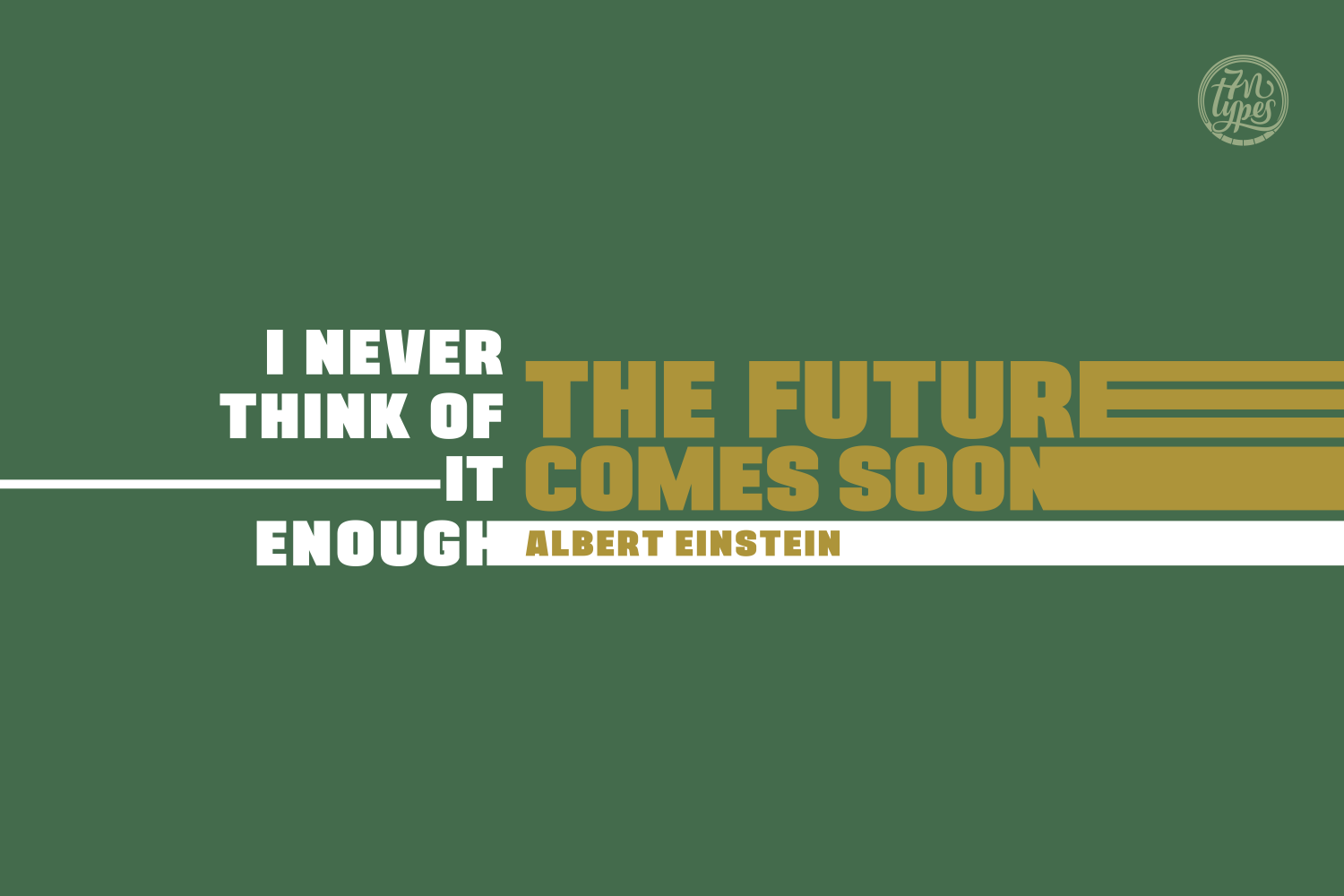
Unleash Your Creativity with Blackplotan Font: A Strong, Bold, and Expressive Sans Font
Are you a designer or crafter looking for a font that makes a statement? Look no further than Blackplotan Font. This strong, bold, and expressive sans font is perfect for adding a touch of personality to your projects. In this article, we’ll dive into the features and benefits of Blackplotan Font, and explore how it can elevate your designs.
The Power of Blackplotan Font
Blackplotan Font is a sans serif font that exudes confidence and creativity. Its bold and expressive letters are designed to make a lasting impression, making it perfect for headlines, titles, and other display text. The font’s strong lines and geometric shapes give it a modern and edgy feel, while its clean and simple design ensures that it remains highly legible.
Key Features of Blackplotan Font
- Strong and Bold: Blackplotan Font is a heavy-hitting font that demands attention. Its bold lines and geometric shapes make it perfect for creating eye-catching headlines and titles.
- Expressive: Despite its boldness, Blackplotan Font has a expressive and dynamic feel. Its letters have a sense of movement and energy, making it perfect for conveying emotion and personality.
- Clean and Simple: While Blackplotan Font is bold and expressive, it remains clean and simple at its core. This makes it highly legible, even at large sizes.
- Versatile: Blackplotan Font is a versatile font that can be used in a wide range of design applications, from posters and flyers to logos and branding.
Why Designers and Crafters Love Blackplotan Font
So why do designers and crafters love Blackplotan Font? Here are just a few reasons:
- Easy to Read: Despite its boldness, Blackplotan Font is easy to read, even at small sizes. This makes it perfect for use in a wide range of design applications.
- Highly Versatile: Blackplotan Font can be used in a wide range of design applications, from posters and flyers to logos and branding.
- Unique and Expressive: Blackplotan Font has a unique and expressive feel that sets it apart from other fonts. Its bold lines and geometric shapes give it a modern and edgy feel.
Using Blackplotan Font in Your Designs
So how can you use Blackplotan Font in your designs? Here are a few ideas to get you started:
- Headlines and Titles: Blackplotan Font is perfect for use in headlines and titles. Its bold and expressive letters make it perfect for grabbing attention and conveying emotion.
- Posters and Flyers: Blackplotan Font is a great choice for posters and flyers. Its bold and eye-catching letters make it perfect for use in advertising and promotional materials.
- Logos and Branding: Blackplotan Font can also be used in logos and branding. Its unique and expressive feel makes it perfect for creating memorable and impactful brand identities.
In conclusion, Blackplotan Font is a strong, bold, and expressive sans font that’s perfect for designers and crafters looking to add a touch of personality to their projects. Its bold lines and geometric shapes give it a modern and edgy feel, while its clean and simple design ensures that it remains highly legible. Whether you’re creating headlines, titles, posters, flyers, logos, or branding, Blackplotan Font is a great choice.